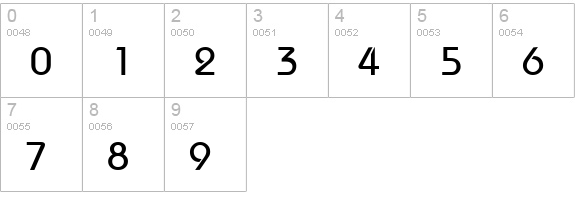
Bordeaux Medium is a balanced, medium-weight variant in the Bordeaux typeface family \xE2\x80\x94 well suited to sub-headlines, navigation, and balanced editorial work.
Introducing Bordeaux Medium font - a timeless and versatile typeface that exudes elegance and sophistication. With its perfect balance of classic and contemporary design elements, Bordeaux Medium is the perfect choice for a wide range of projects, from branding to editorial design. This exquisite font features clean lines, subtle curves, and a hint of vintage charm, making it ideal for creating stunning headlines, logos, and more. Its medium weight strikes the perfect balance between bold and delicate, making it a versatile option for both print and digital applications. Best of all, Bordeaux Medium font is completely free to download at FontsMarket.com! Don't miss out on the opportunity to add this premium typeface to your collection and elevate your designs to the next level. Download Bordeaux Medium today and bring a touch of sophistication to your projects.